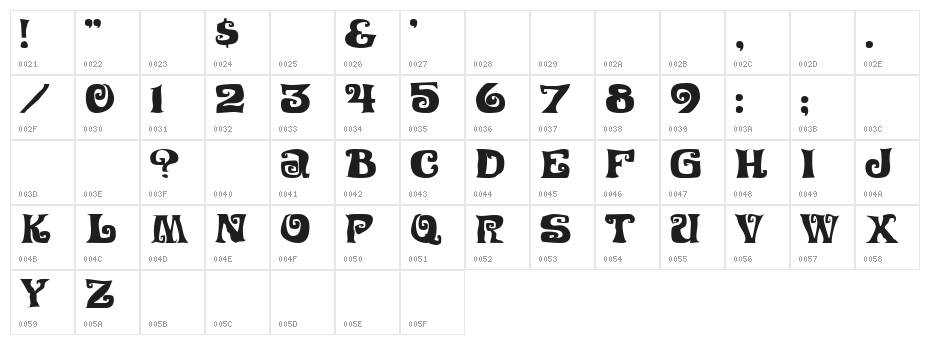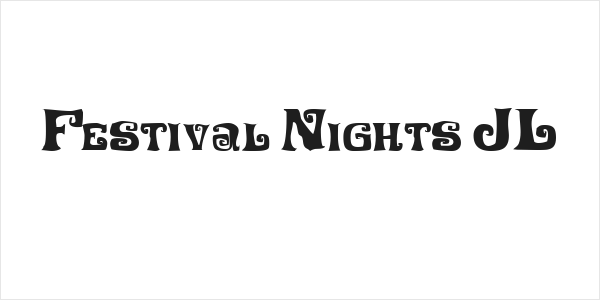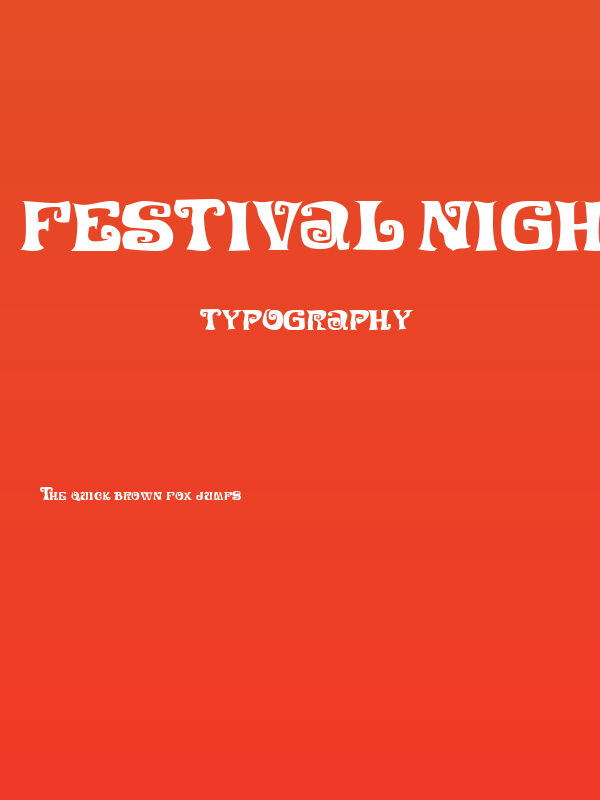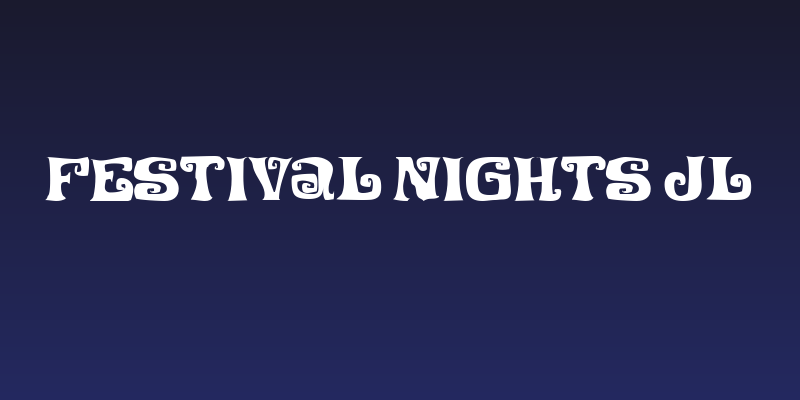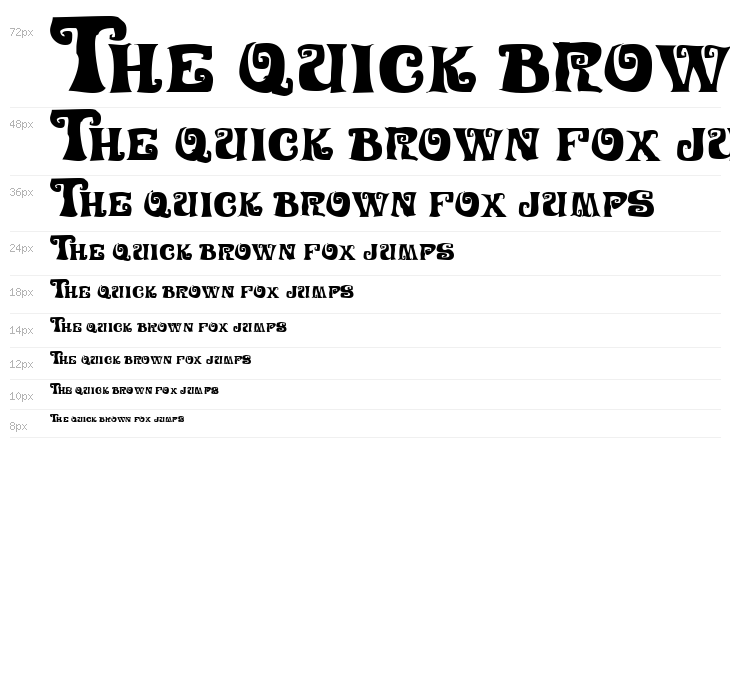
Festival Nights JL Font
Festival Nights JL Description
This font features a bold and playful design with a distinct decorative flair. Each character is uniquely crafted with swirling elements and exaggerated serifs, giving it a whimsical and festive appearance. The uppercase and lowercase letters maintain a consistent style, with a strong emphasis on curves and embellishments. Numbers and special characters follow the same decorative theme, making the font suitable for creative and eye-catching designs. The overall look is dynamic and lively, perfect for projects that require a touch of fun and excitement.
| Proposed Projects | Ideal for party invitations, festive event posters, children's book covers, and playful branding. |